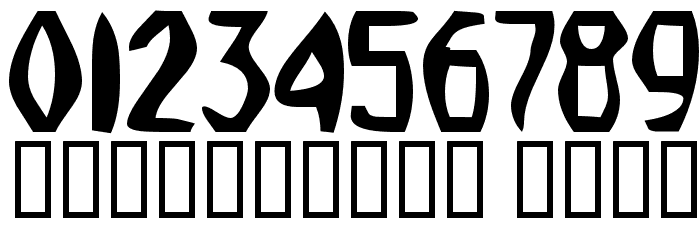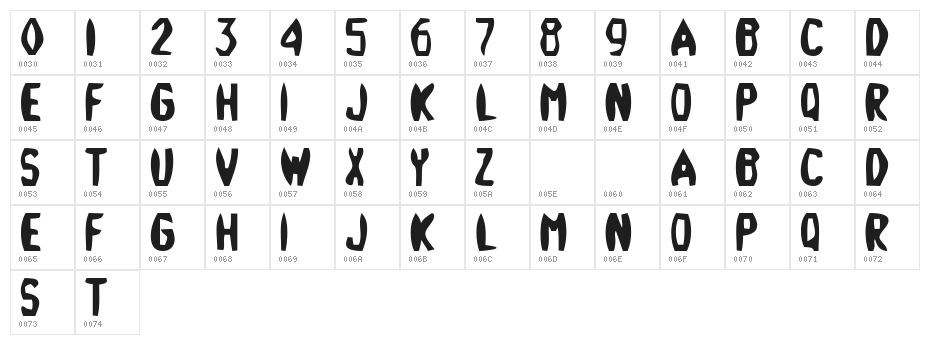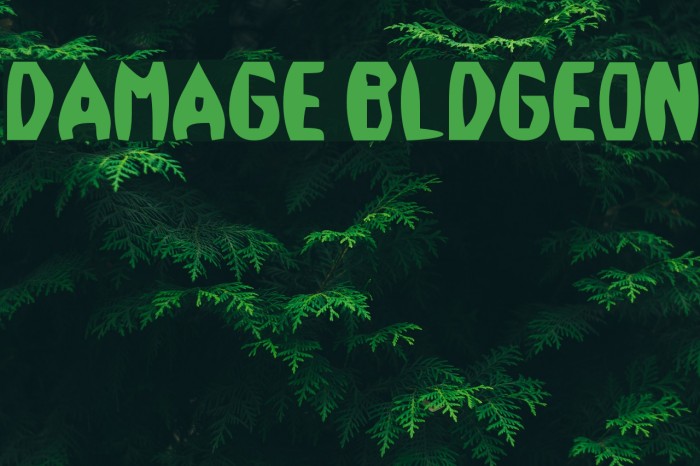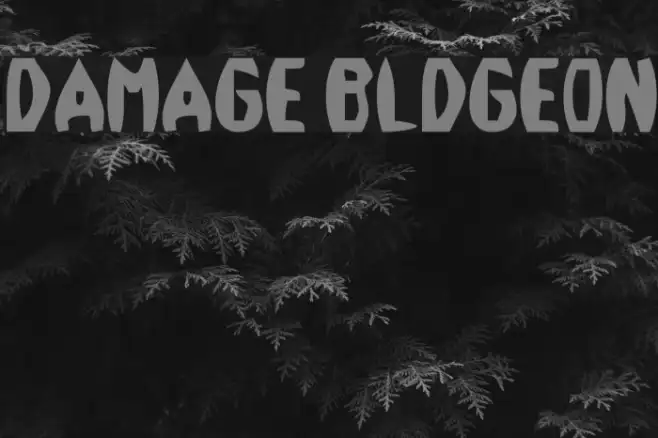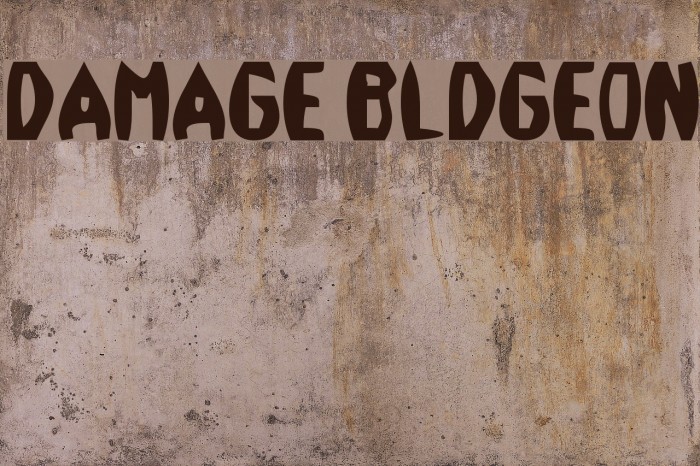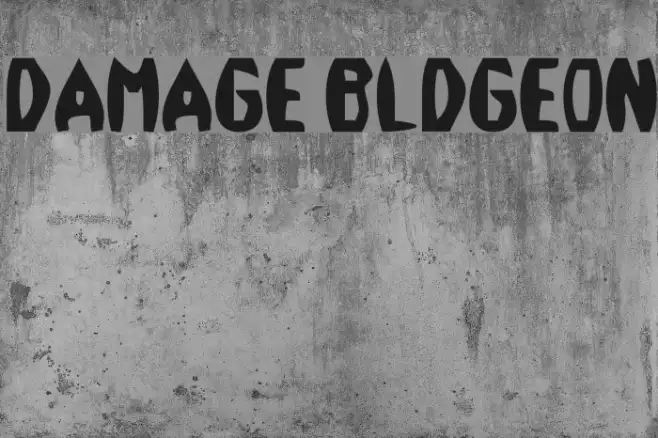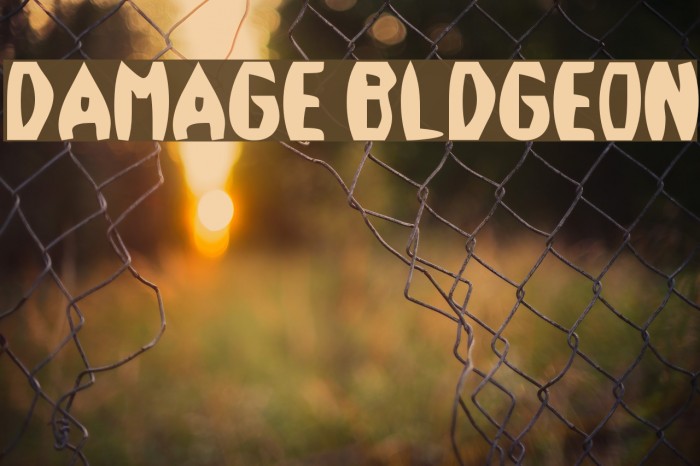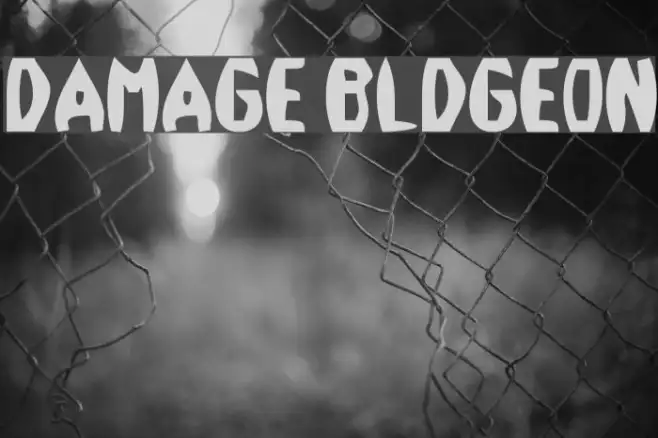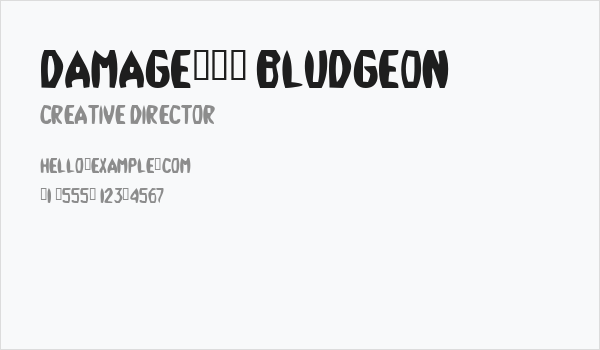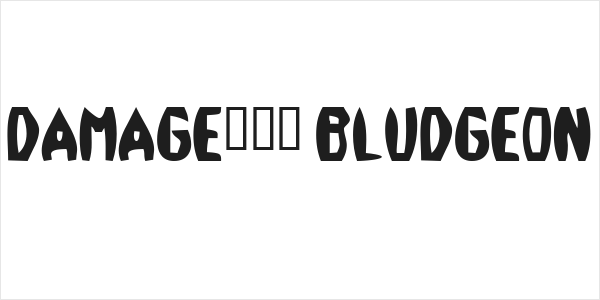
Damage!" Bludgeon Font
Damage!" Bludgeon Description
This font features a bold and dynamic style with a rugged, hand-drawn appearance. The characters are thick and slightly irregular, giving them a unique, edgy look. The uppercase and lowercase letters maintain a consistent weight, while the numbers and special characters follow the same bold and impactful design. The overall aesthetic is reminiscent of graffiti or street art, making it stand out with its strong visual presence. The font's design is suitable for projects that require a bold statement or a creative, unconventional touch.
| Proposed Projects | Ideal for posters, album covers, streetwear branding, and urban-themed designs. |